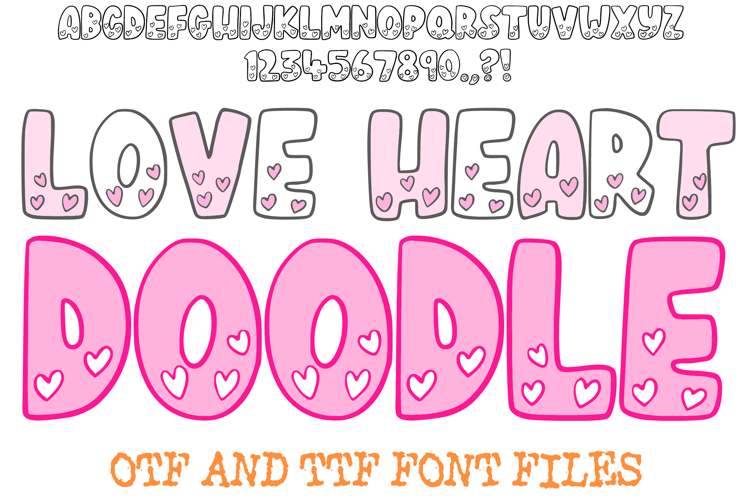
Love Heart Doodle Font Valentine’s Day Bubble Typeface
Add a burst of affection to your designs with the Love Heart Doodle Font! This charming display typeface features bold, "puffy" bubble characters with a clean outline style. The magic is in the details—the interior of every letter and number is decorated with a scattering of tiny, hand-drawn hearts, giving each character a sweet and artisanal feel.
Perfectly timed for Valentine’s Day, this font captures a cozy, "doodled-in-a-notebook" aesthetic that is ideal for romantic stationery, wedding favors, and Galentine's Day party decor. The hollow design allows for endless creativity; you can leave them as clean outlines or color in the tiny hearts for a vibrant, custom look.
Intricate Heart Details: Each character is pre-filled with multiple small heart doodles, adding instant decorative flair.
Bold Bubble Style: The thick, rounded outlines provide a friendly and approachable vibe for audiences of all ages.
Versatile Outline Design: Perfect for layering over colors or patterns, making the heart details really stand out.
Craft-Ready Character Set: Includes all uppercase letters, numerals, and punctuation, making it perfect for custom vinyl projects.